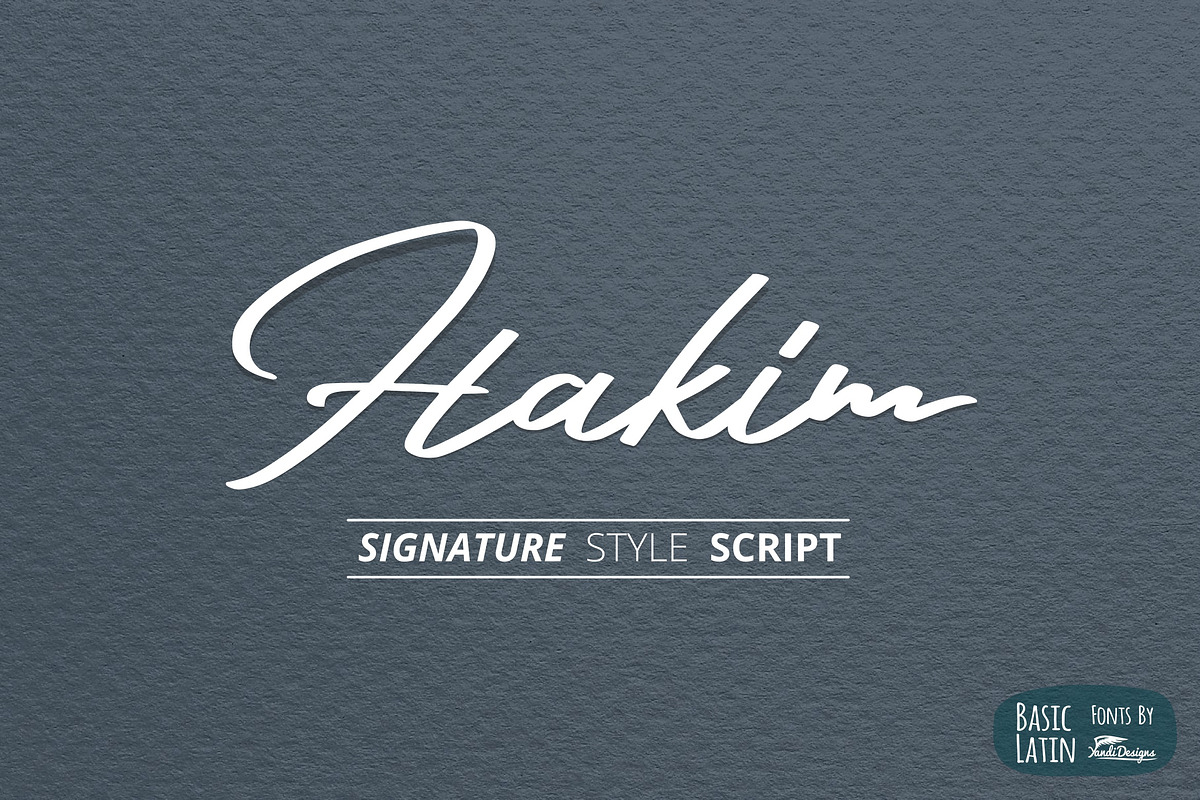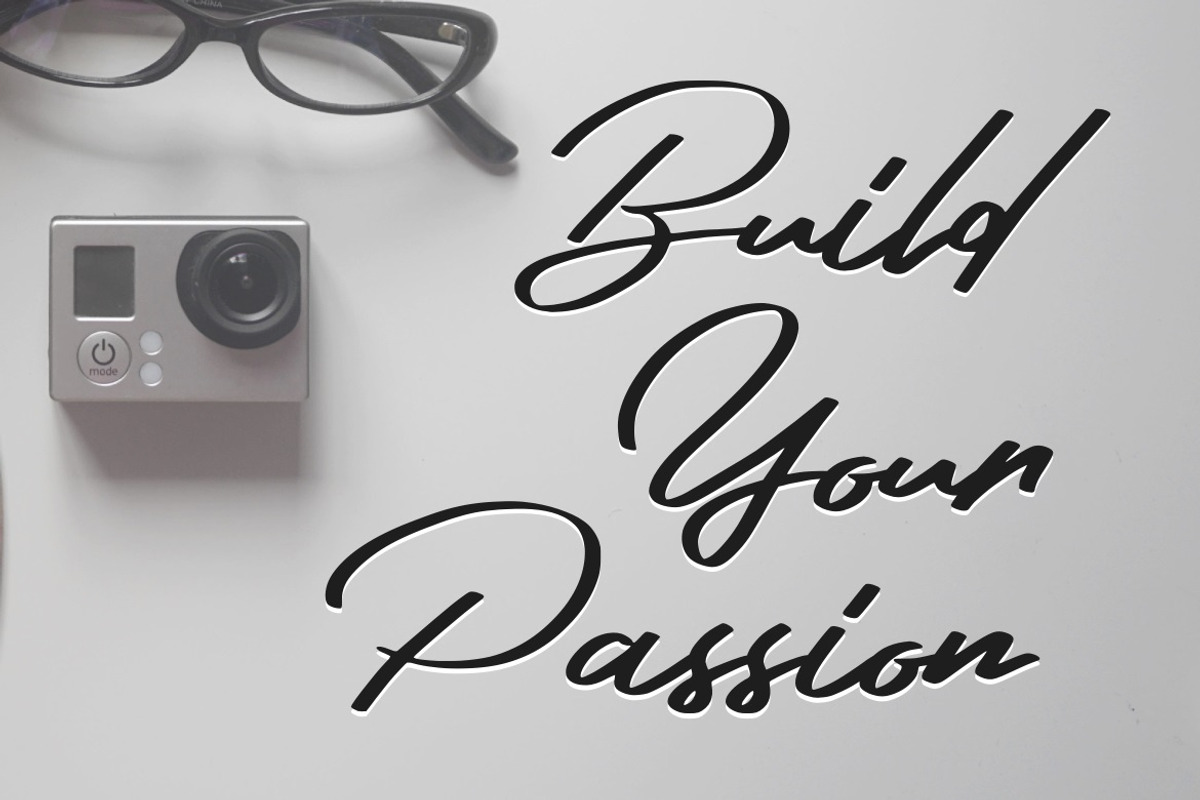
Hakim Signature Font
Simple signature marker style script font , suitable for many project , quotes, logo , doodle, heading , title etc.
Why Hakim Signature Font is worth a look
Hakim Signature Font by YandiDesigns fits naturally into Branding, posters, packaging, typography.